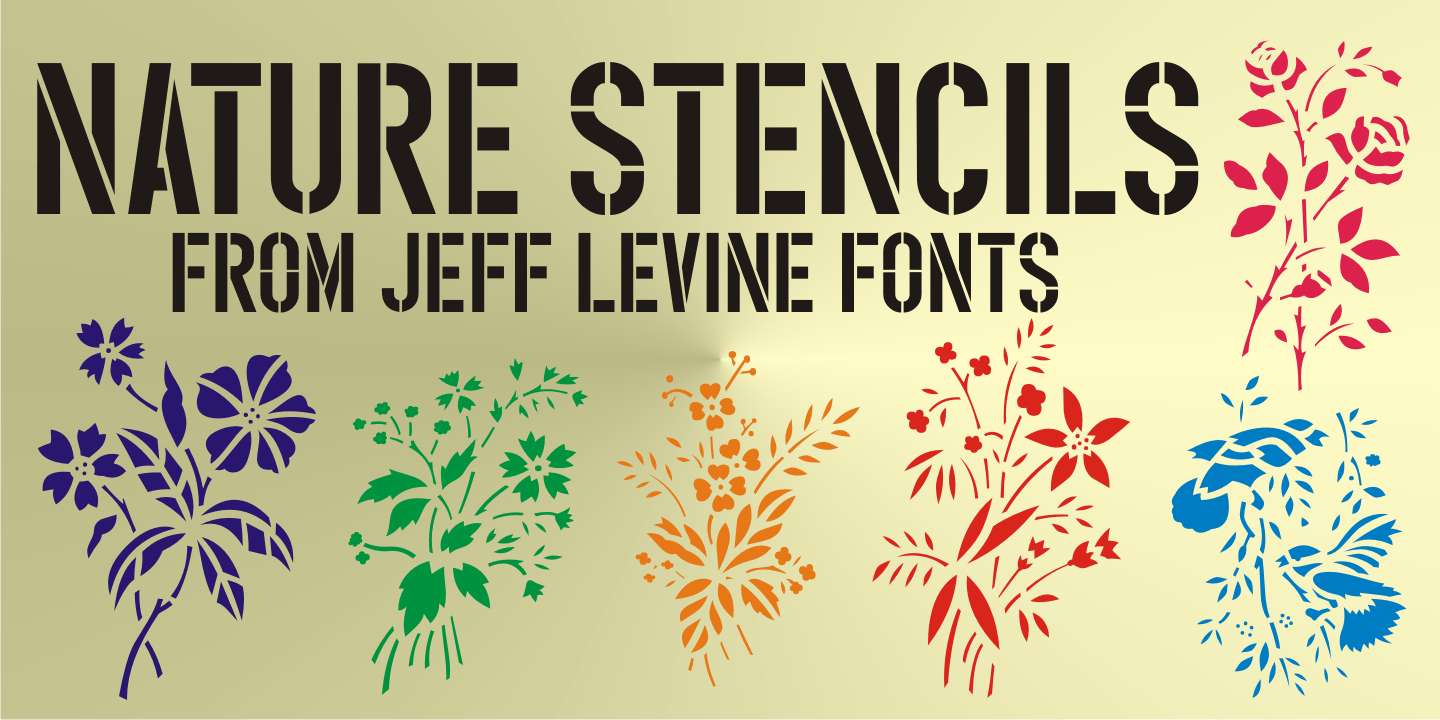
Nature Stencils
Nature Stencils JNL brings together a number of vintage decorator stencils with bird and flower motifs (along with individualized elements from the original designs).
These home decor stencils were manufactured by the Huntington Oil Cured Stencil Company somewhere around the early 1950s. Originally located in Huntington, New York, the company later relocated to the South Florida area, but there is no additional information found about the company's background.